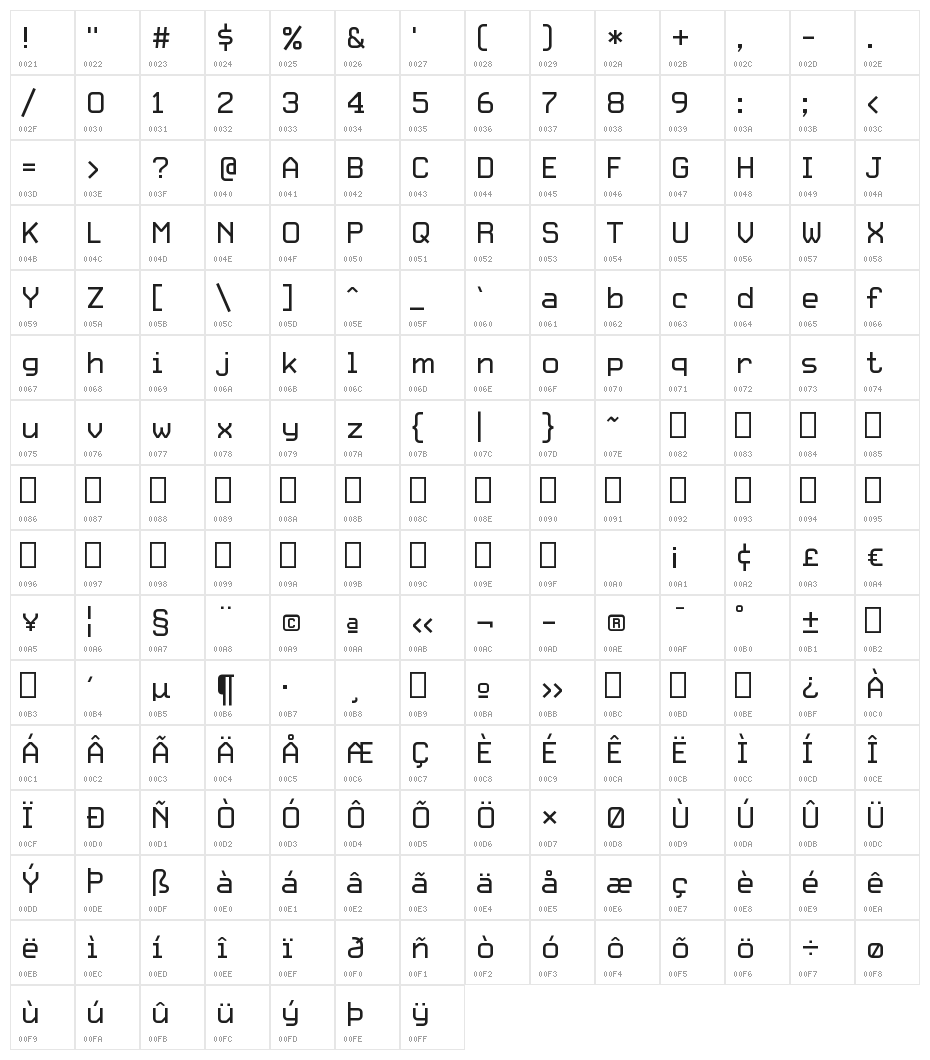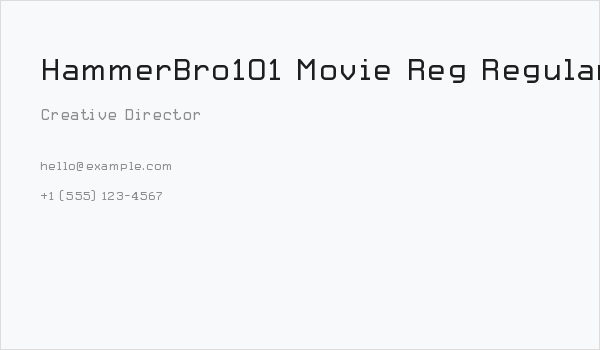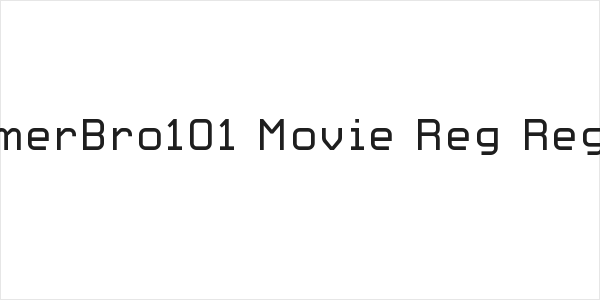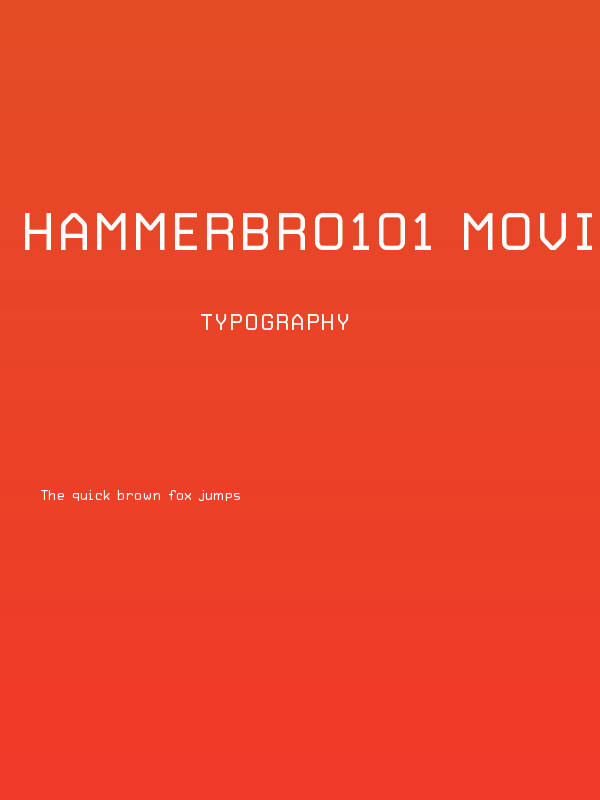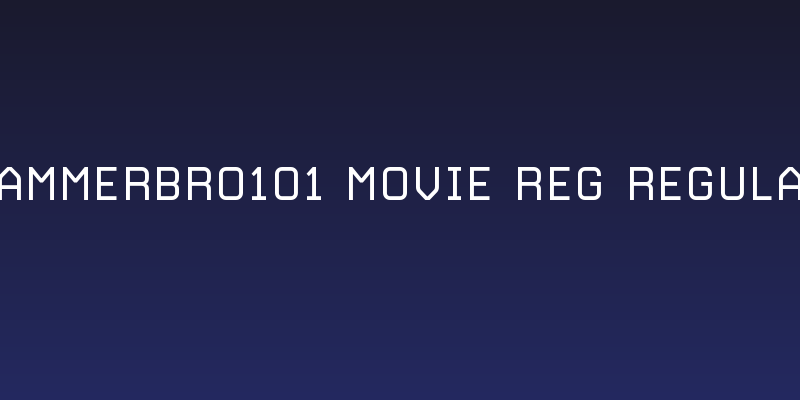
HammerBro101 Movie Reg Regular Font
HammerBro101 Movie Reg Regular Description
This font features a clean, geometric design with a modern aesthetic. The characters are constructed with uniform stroke widths, giving it a monospaced appearance. The uppercase letters are bold and assertive, while the lowercase letters maintain a consistent style that complements the uppercase. The numerals are clear and easy to read, making them suitable for digital displays or technical documents. Special characters are well-defined, ensuring versatility in various applications. The overall design is minimalistic, focusing on functionality and readability.
| Use Case | Coding, Technical documents, Digital displays |
| Proposed Projects | Ideal for coding environments, technical documents, digital displays, and minimalist design projects. |